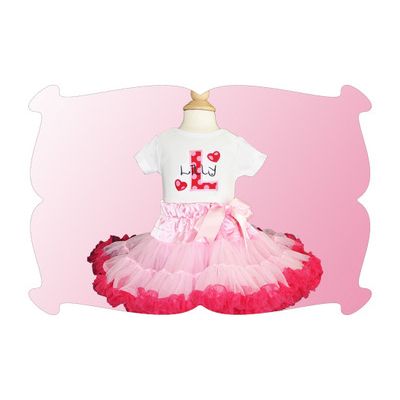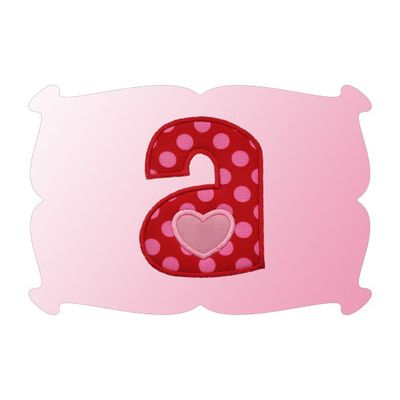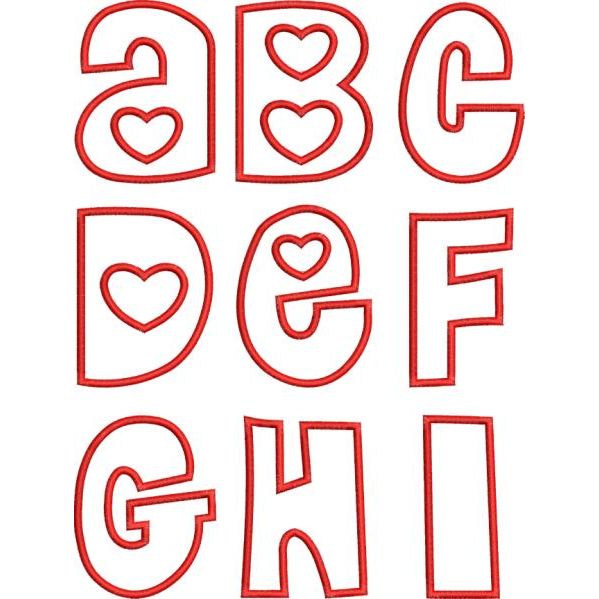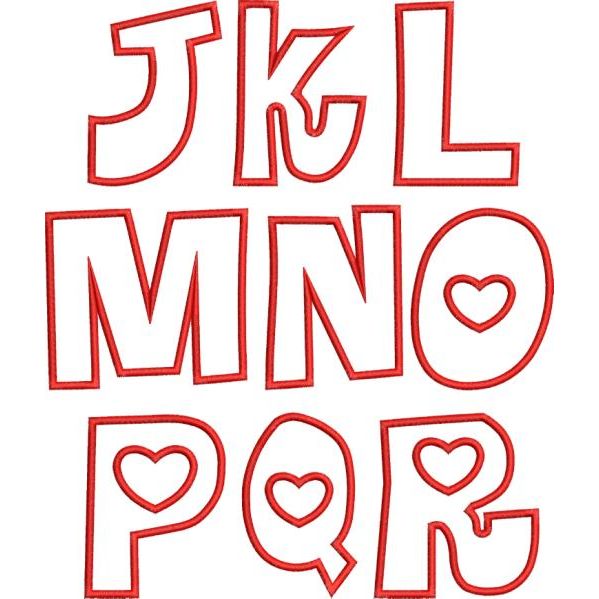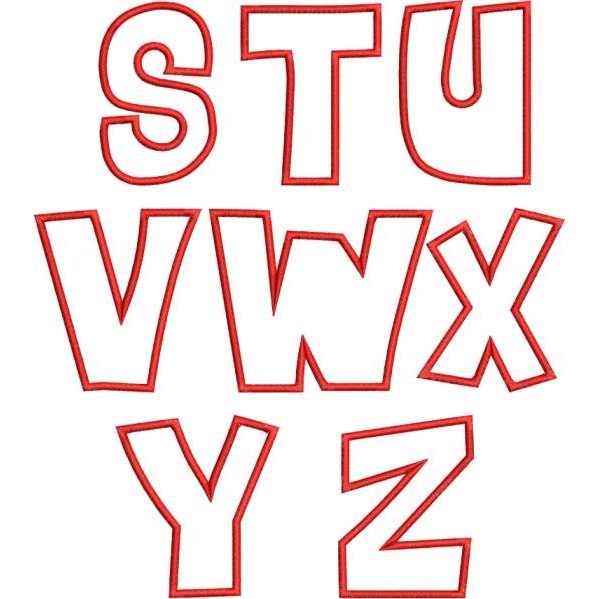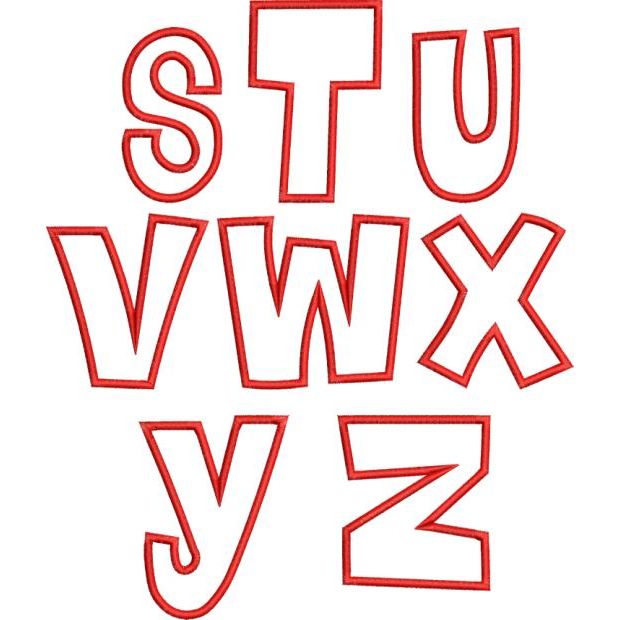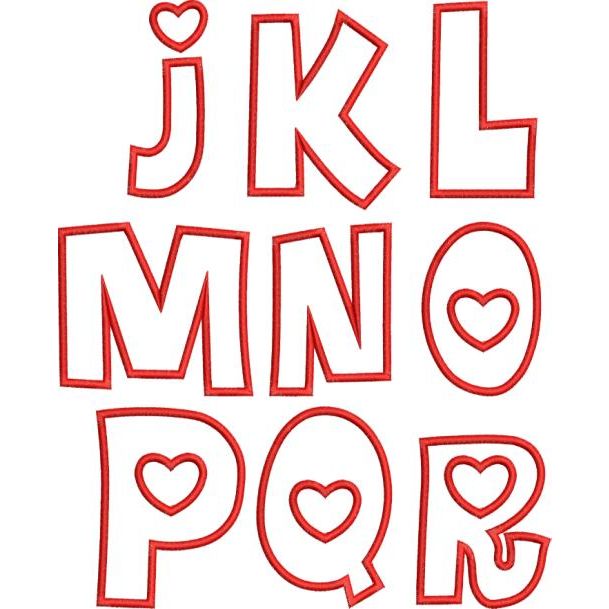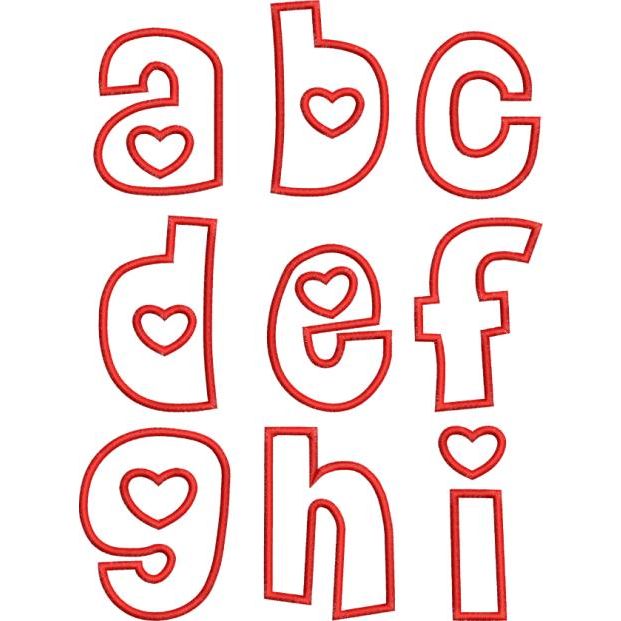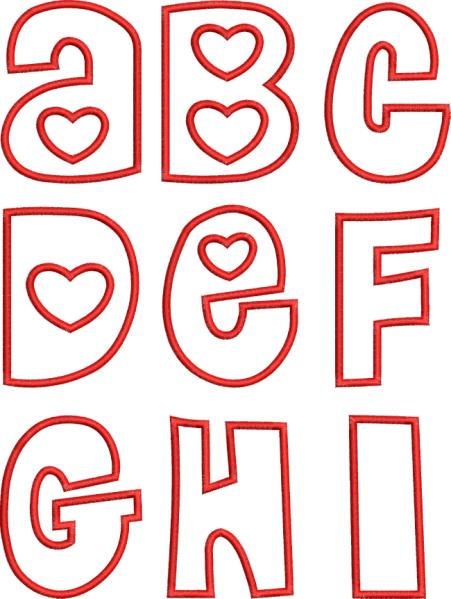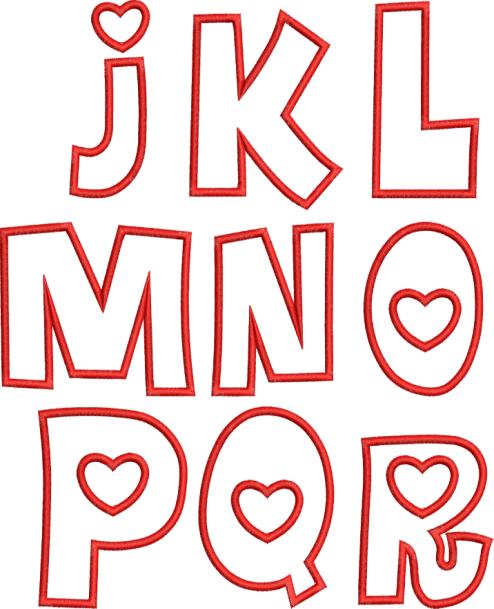
Heart Satin Stitch Applique Embroidery Font
Heart Applique Font
The perfect applique font for your little sweetheart!
It's a fun font for Oneises, T's and burp cloths too.
And it's not just for Valentine's Day!
(stacked font shown on Lilly's shirt not included with this applique font)
Heart appliques (in both satin and zig zag stitches) included with your purchase!
There are two ways to finish this font! With a heart cutout or a heart applique.
Also included are 2 types of finishing stitches: traditional satin stitch and zig zag stitch.
Capital letters A thru Z and lower case letters a thru z.
Please Note: This appliqué includes upper case letters in sizes 3.5, 4.5 and 5.5 inches. The lower case letters are sized to coordinate with the upper case. However, this is a "wonky" font and some of the upper case as well as the lower case letters are different than a standard upper or lower case (please see photos below). All upper case designs are sized to coordinate with the lower case designs, even if some of the letters appear to be the same. For example: the upper and lower case letter "a" are the same design, however the lower case letter is smaller than the one in the upper case. The "wonky-ness" of the font is such an adorable look, I think you will love it. :)